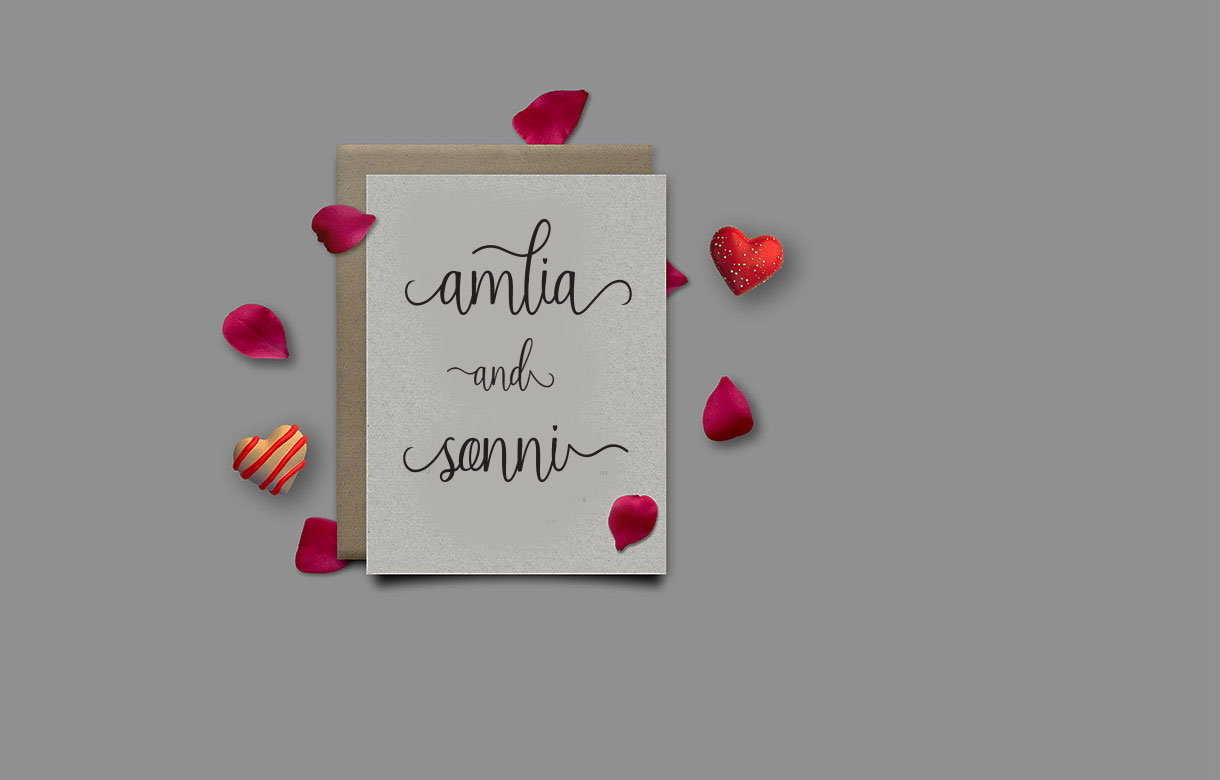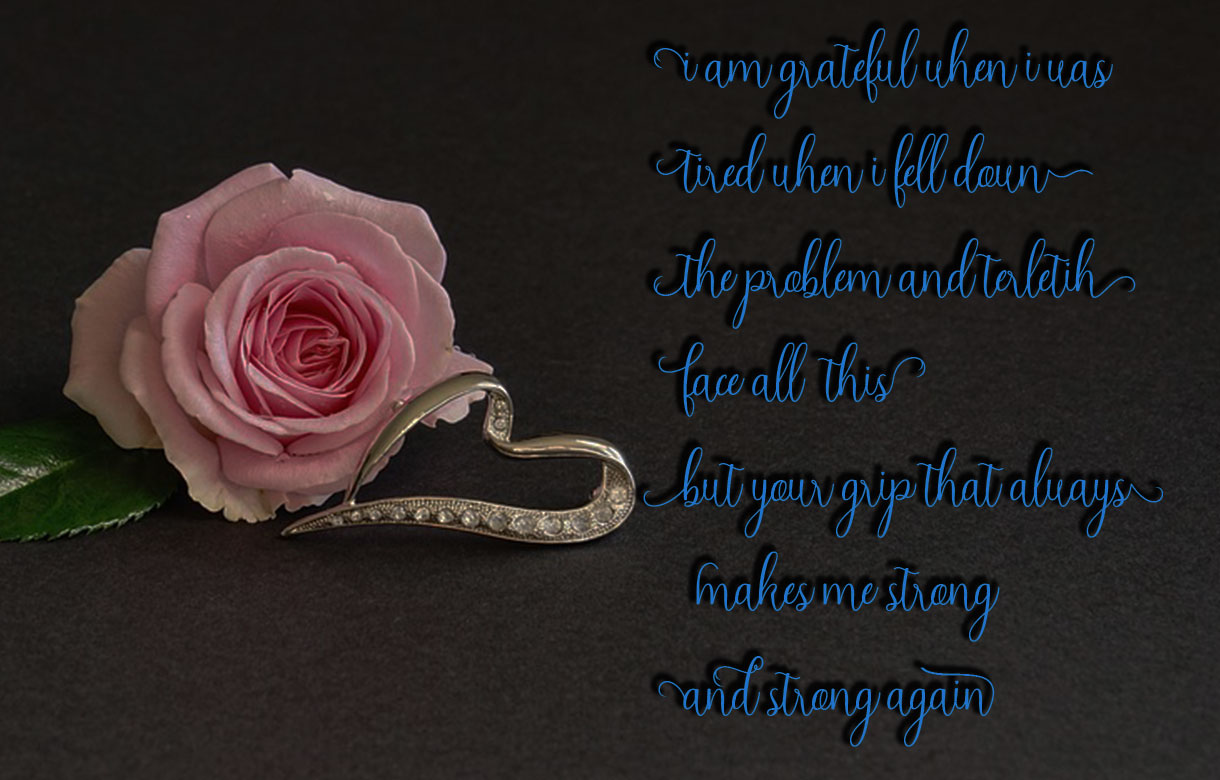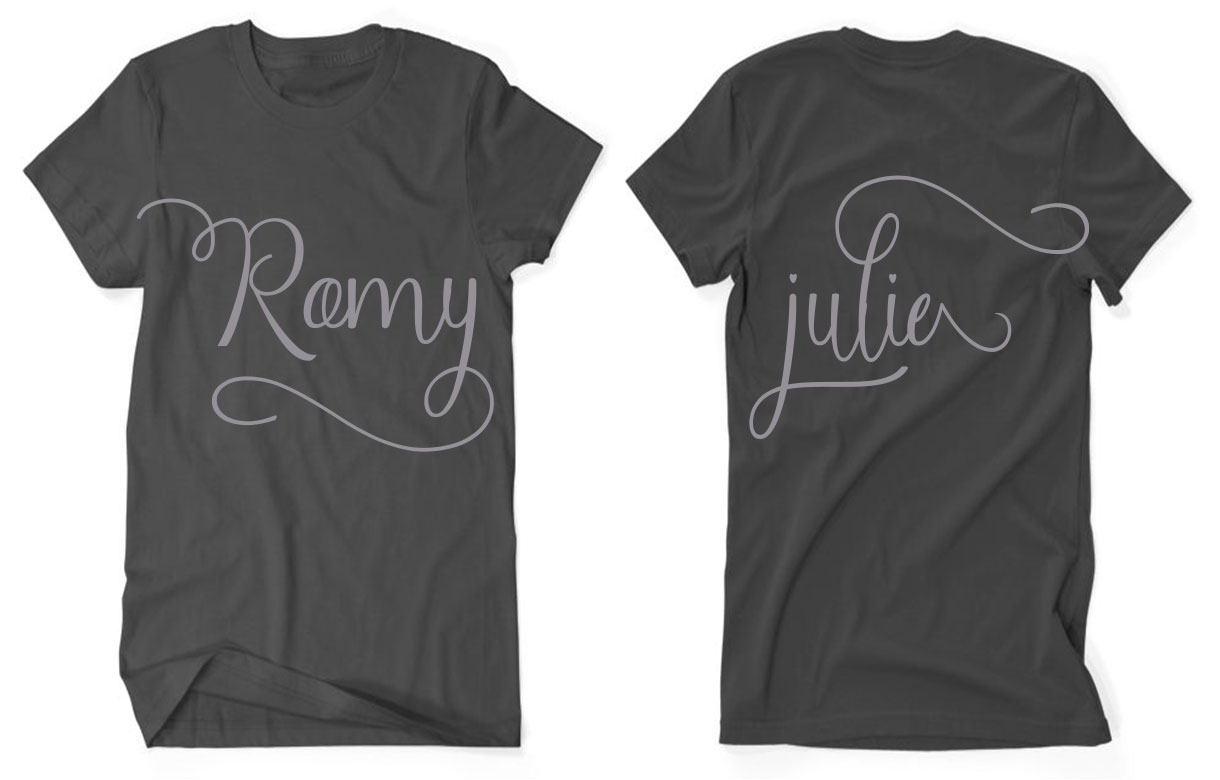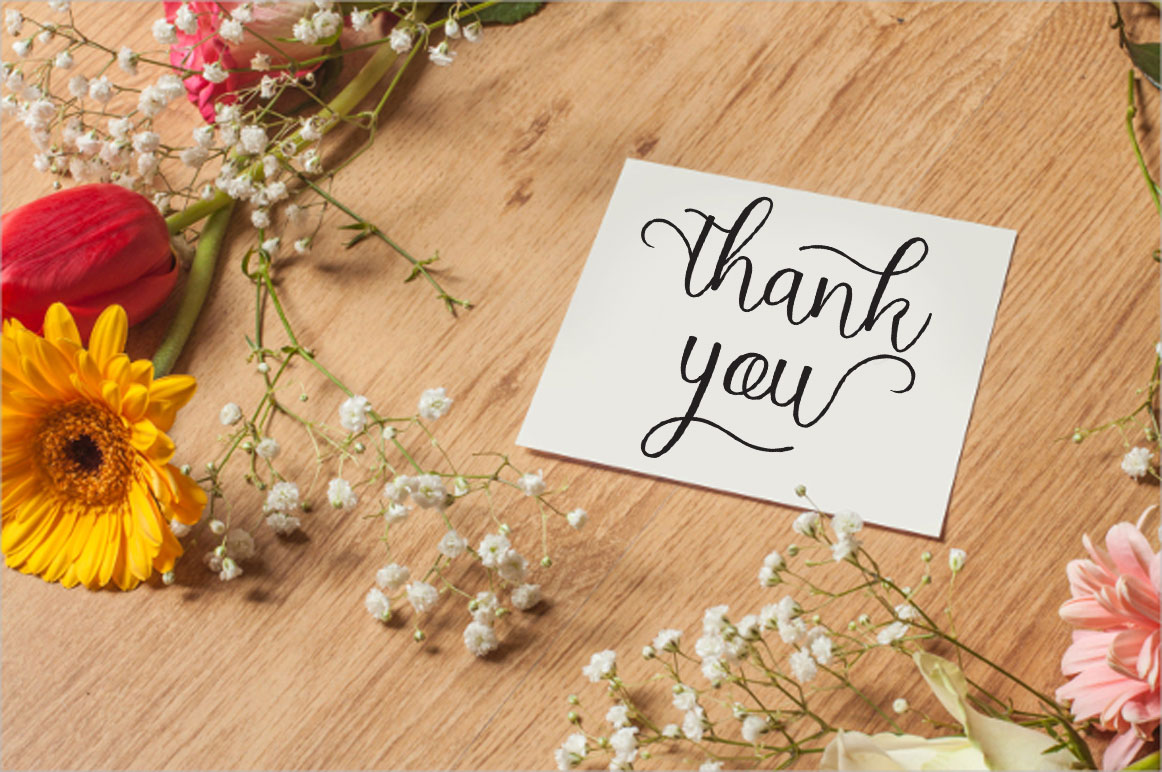
Introducing Amelia Script Font: Elevate Your Designs with Elegance and Flair
Are you on the hunt for a font that exudes romance, sophistication, and elegance? Look no further than the stunning Amelia Script Font. This beautiful script font is designed to add a touch of class to a wide range of projects, from wedding invitations and branding materials to digital content and craft designs. In this article, we’ll dive into the world of Amelia Script Font, exploring its features, benefits, and uses, as well as provide tips on how to make the most of this gorgeous font.
The Beauty of Amelia Script Font
Amelia Script Font is a thin script font that boasts a unique blend of elegance and flair. Its delicate lines and curves create a romantic and whimsical feel, making it perfect for designs that require a touch of sophistication. Whether you’re working on a wedding invitation, a logo, or a social media graphic, Amelia Script Font is sure to impress.
Key Features of Amelia Script Font
- Thin script lines: Amelia Script Font features delicate, thin lines that create a light and airy feel.
- Elegant and refined: This font is perfect for designs that require a touch of sophistication and elegance.
- Romantic and whimsical: Amelia Script Font has a playful, romantic feel that’s perfect for wedding designs, Valentine’s Day cards, and other projects that require a touch of whimsy.
- Versatile: This font can be used for a wide range of projects, from digital content to print materials.
Benefits of Using Amelia Script Font
So why choose Amelia Script Font for your next project? Here are just a few benefits of using this gorgeous font:
- Adds a touch of class: Amelia Script Font can elevate even the simplest design, adding a touch of sophistication and elegance.
- Perfect for romantic designs: Whether you’re working on a wedding invitation or a Valentine’s Day card, Amelia Script Font is the perfect choice.
- Easy to read: Despite its delicate lines, Amelia Script Font is surprisingly easy to read, making it perfect for body text and headlines.
- Unique and distinctive: This font has a unique, hand-crafted feel that’s sure to set your design apart from the crowd.
Tips for Using Amelia Script Font
To get the most out of Amelia Script Font, here are a few tips to keep in mind:
- Pair with bold fonts: Amelia Script Font looks stunning when paired with bold, sans-serif fonts. Try pairing it with a font like Arial Black or Helvetica Bold for a striking contrast.
- Use for headlines and titles: This font is perfect for headlines and titles, where its elegant lines and curves can really shine.
- Add some flair with swashes: Amelia Script Font comes with a range of swashes and flourishes that can add an extra touch of elegance to your design.
- Experiment with colors: This font looks stunning in a range of colors, from soft pastels to rich jewel tones. Experiment with different colors to find the perfect fit for your design.
Amelia Script Font is a beautiful, elegant font that’s perfect for designers and crafters looking to add a touch of sophistication to their projects. With its delicate lines, romantic feel, and versatile uses, this font is sure to become a favorite in your design arsenal. Whether you’re working on a wedding invitation, a logo, or a social media graphic, Amelia Script Font is the perfect choice. So why wait? Download Amelia Script Font today and start elevating your designs with elegance and flair!